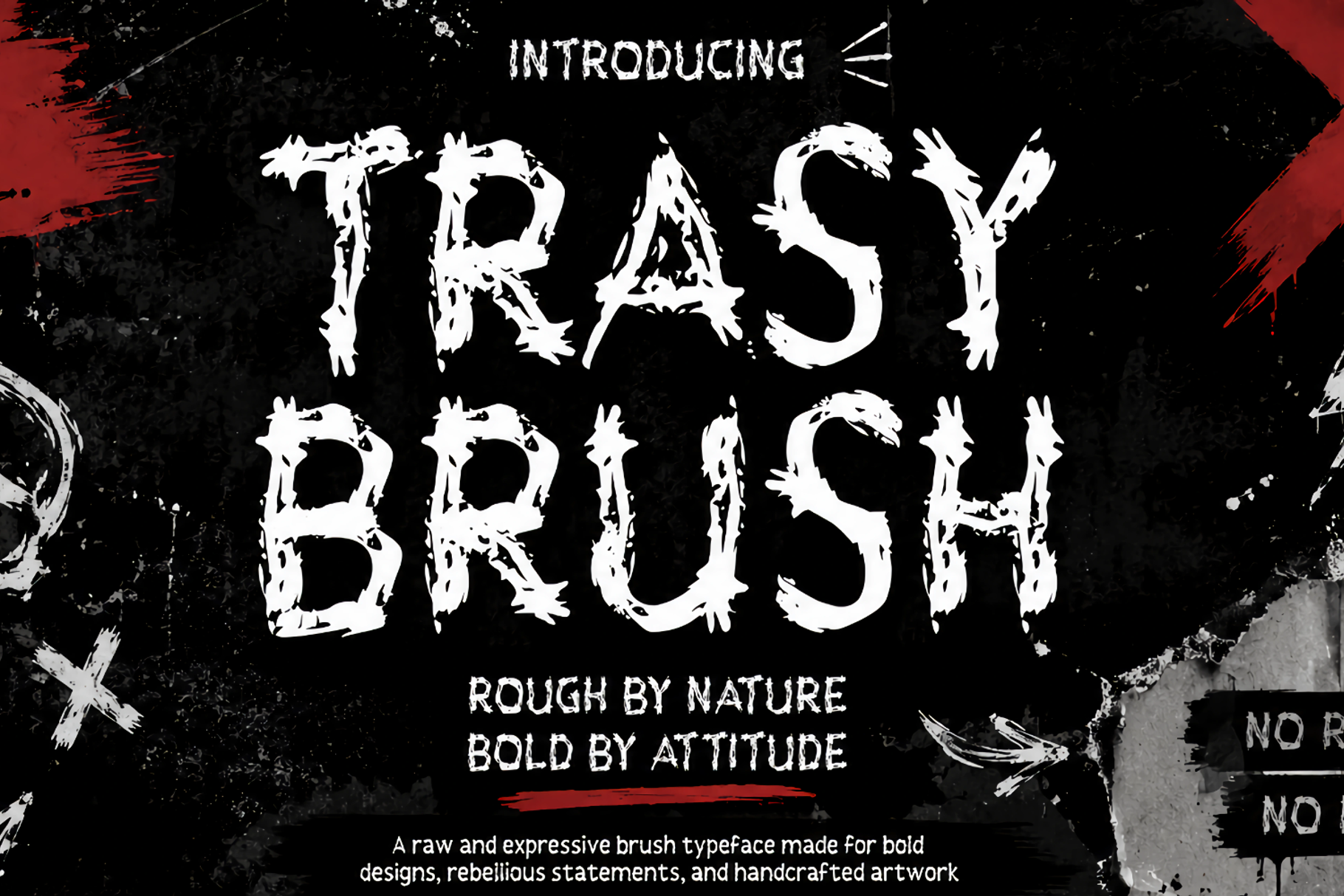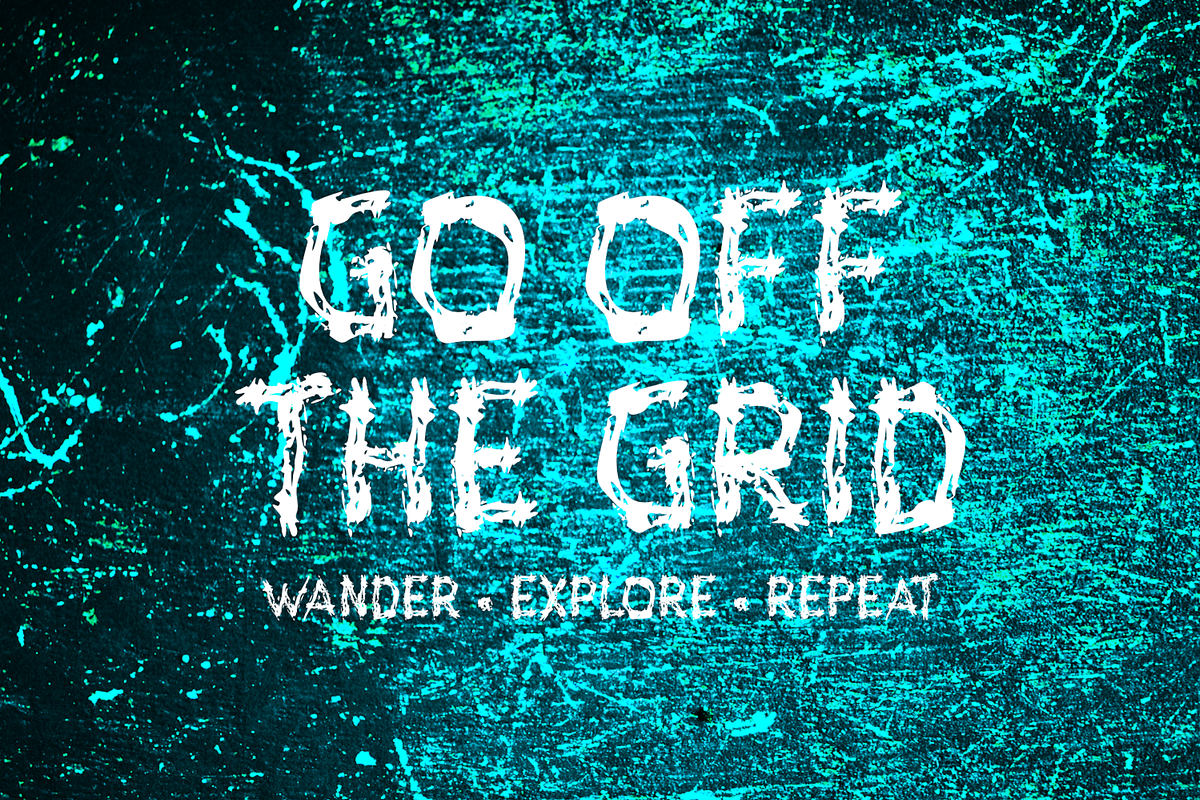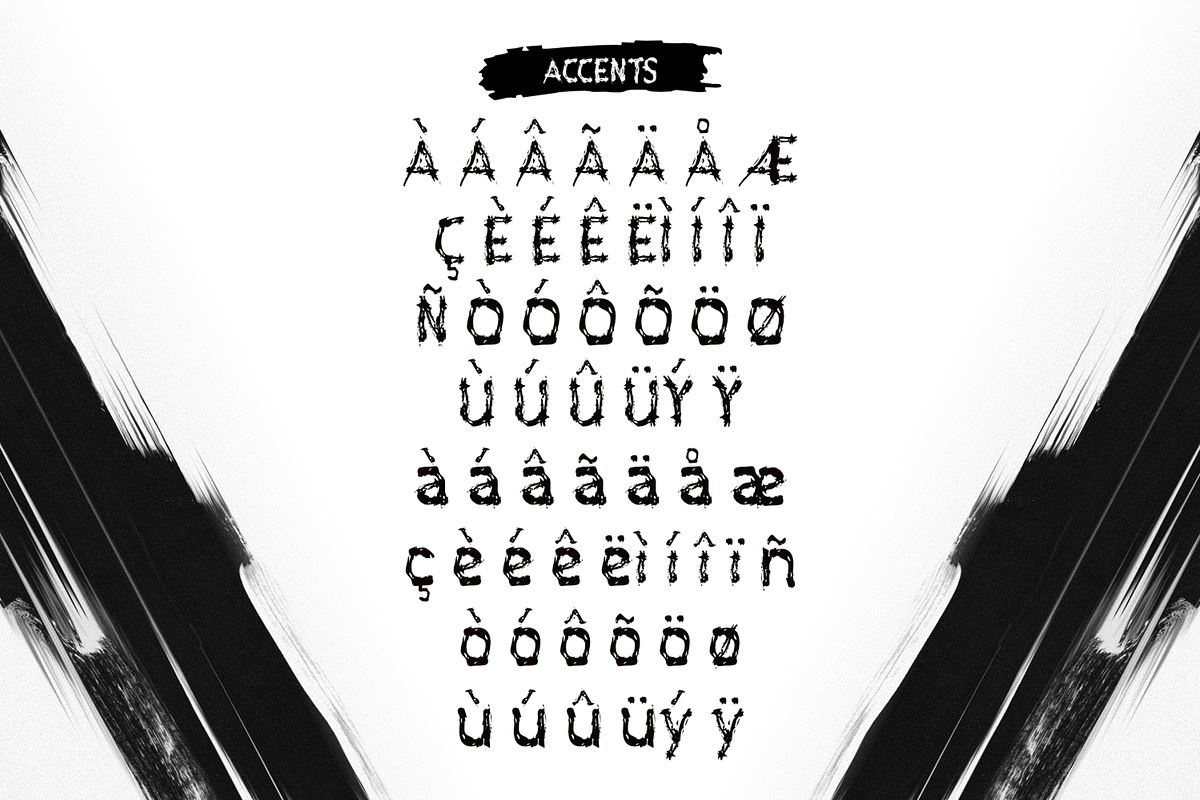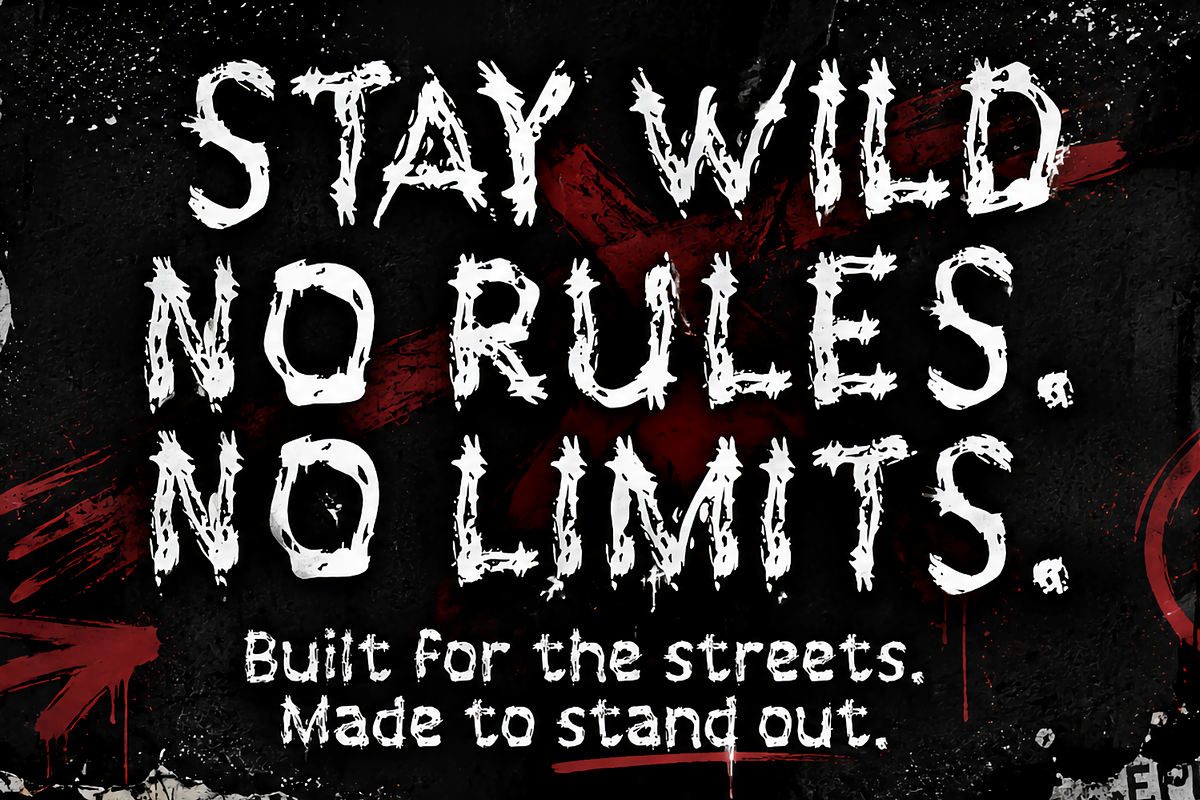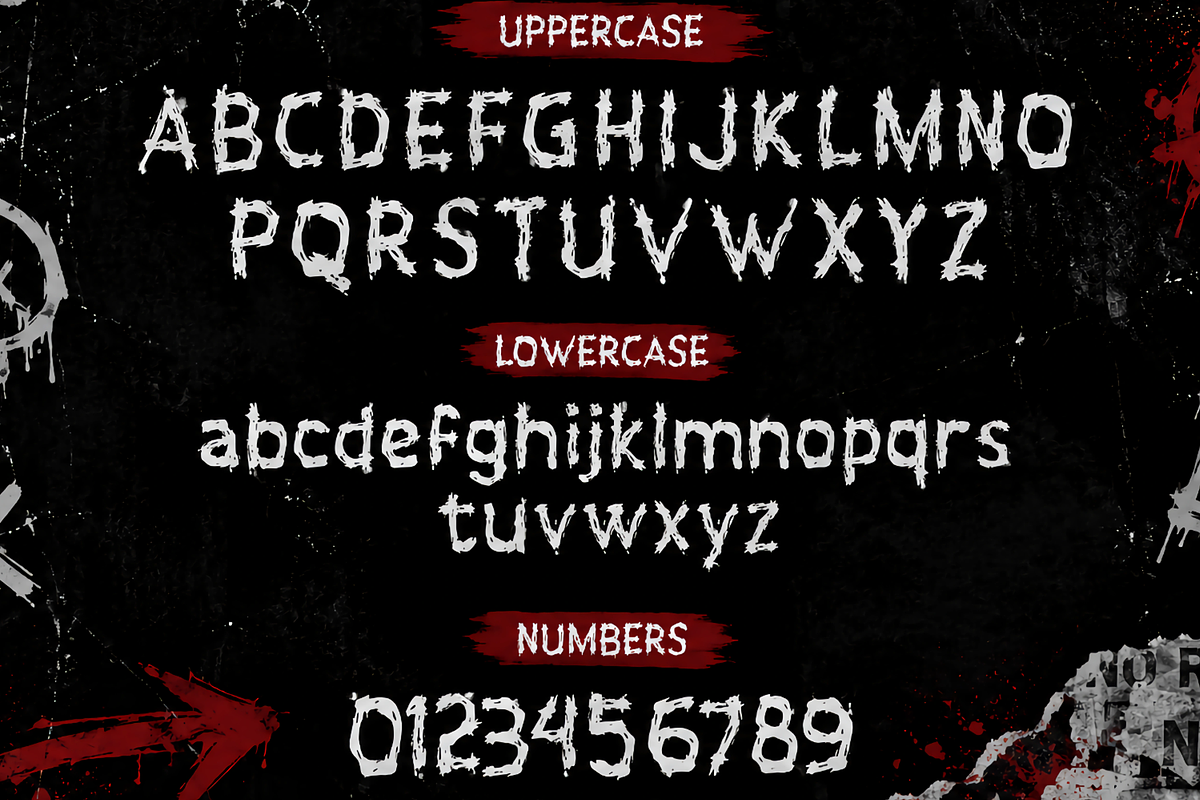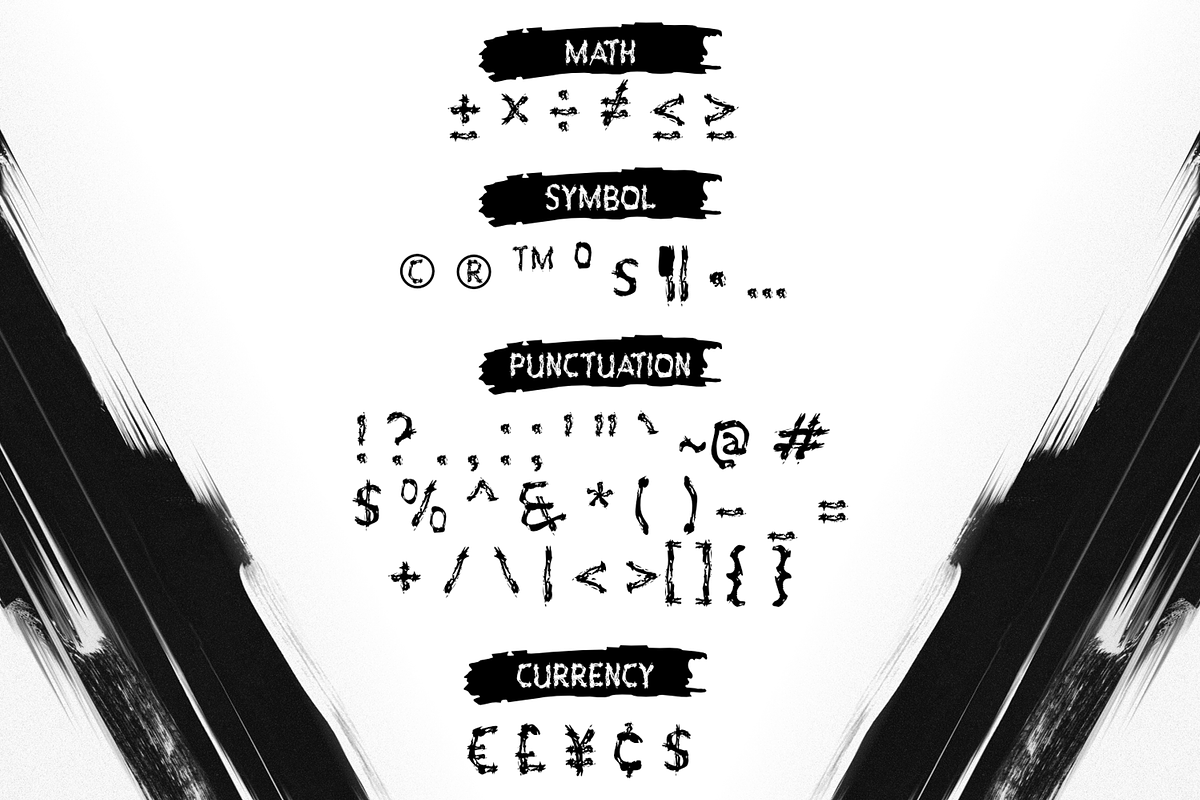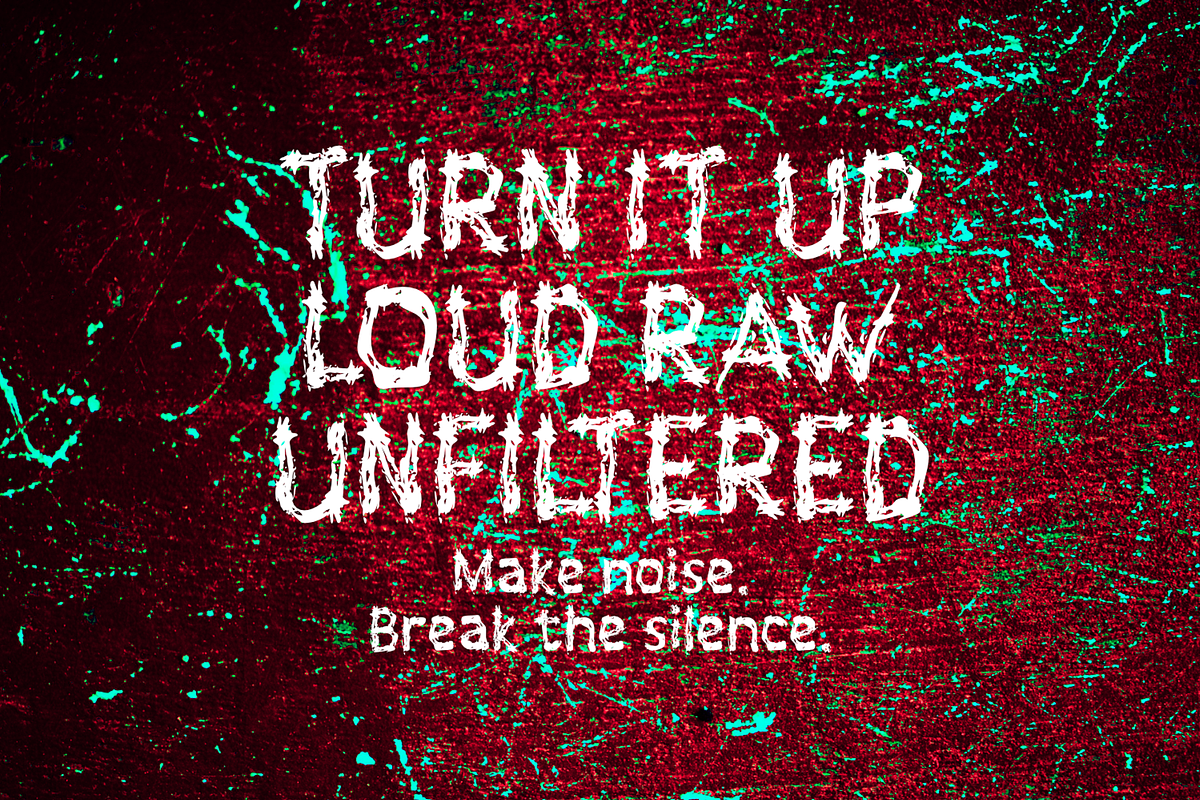
Trasy Brush Grunge Brush Typeface
TRASY BRUSH is a bold and distressed brush typeface with a raw, rebellious, and handcrafted character. Its rough edges, irregular strokes, and worn textures create an authentic underground aesthetic. Perfect for streetwear, punk and rock posters, album artwork, graffiti designs, logos, stickers, T-shirts, branding, and other projects that need a strong, edgy visual impact.